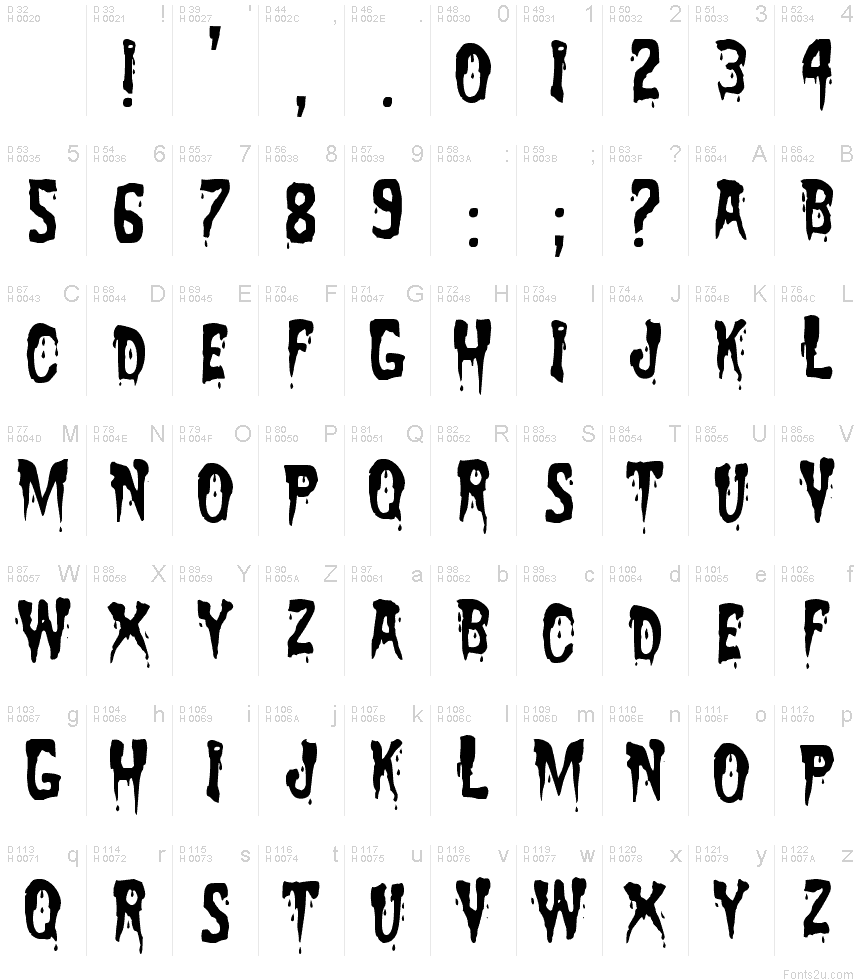
Zreaks NFI
Zreaks NFI is a captivating display font designed by Thomas W. Otto, exuding an unmistakable air of mystery and intrigue. Featuring a condensed, spooky aesthetic, this font's sharp, angular letterforms and irregular edges lend an unsettling, horror-inspired charm.
The bold, expressive style is perfect for creating attention-grabbing headlines, ominous movie posters, or chilling book covers. Its versatility extends to various design contexts, from Halloween-themed branding to dark, moody editorial layouts.
Zreaks NFI's unique character and haunting allure make it a standout choice for designers seeking to evoke a sense of the supernatural and the macabre.
The bold, expressive style is perfect for creating attention-grabbing headlines, ominous movie posters, or chilling book covers. Its versatility extends to various design contexts, from Halloween-themed branding to dark, moody editorial layouts.
Zreaks NFI's unique character and haunting allure make it a standout choice for designers seeking to evoke a sense of the supernatural and the macabre.